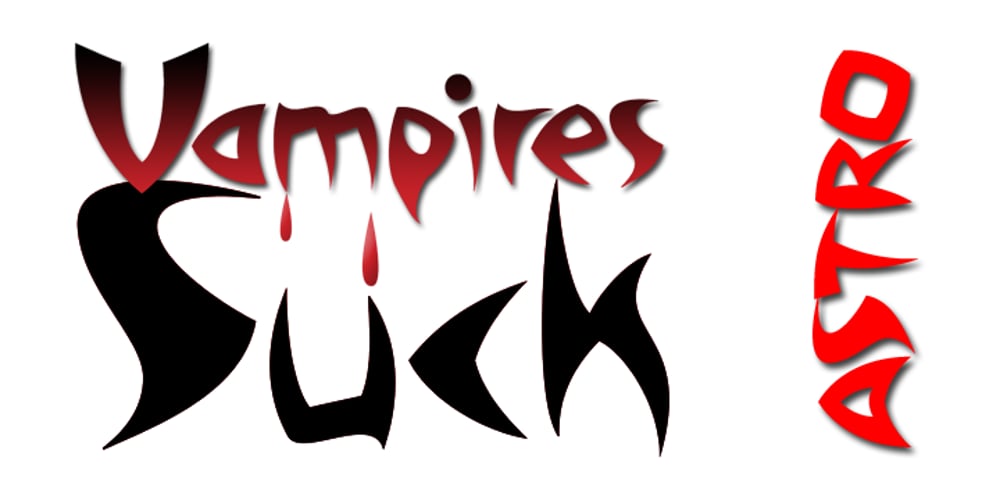
Astro Font Family was designed by Randy Harris and published by Just My Type. Astro contains 1 styles and family package options. When Sputnik launched in 1957, the world was launched into the Space Age, baby! It was rockets and soda shops, souped-up jalopies and Fairlane convertibles with radios blaring. Rock and Roll. American Bandstand and the Race to Space. Astro aims to call back those exciting days with a look that might have graced the sign of your local drive-in or donut shop. The uppercase characters look like they could fly, suggesting spacecraft, UFOs. Use it for Retro future events or business branding. It also seems to work exceptionally well, strangely, with French, Icelandic, Japanese and African names and anything to do with fish.